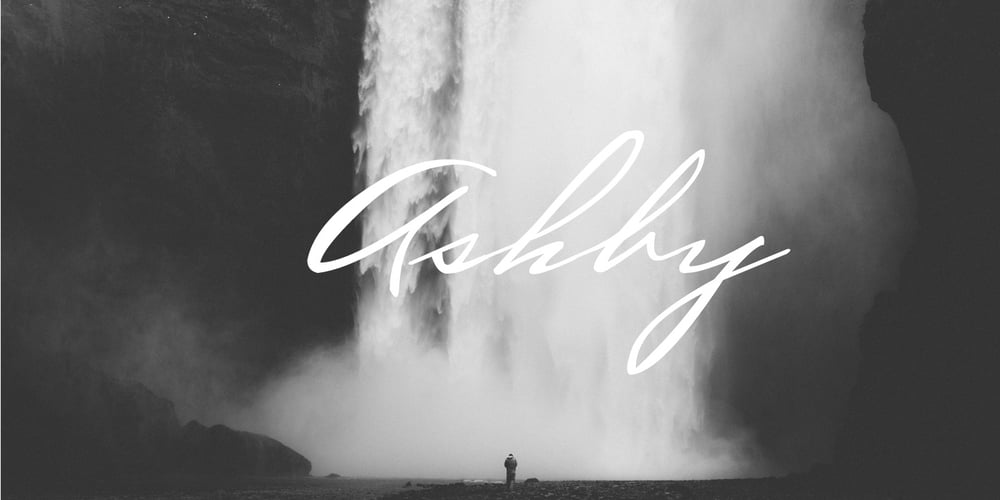
Ashby Font Family was designed by Corien Bennink and published by Corien’s Handwritingfonts. Ashby contains 1 styles and family package options. Ashby is a Spencerian based handwritten script, with elegant capital letters. Written with a flexible nib, which results in some beautiful line width variation.